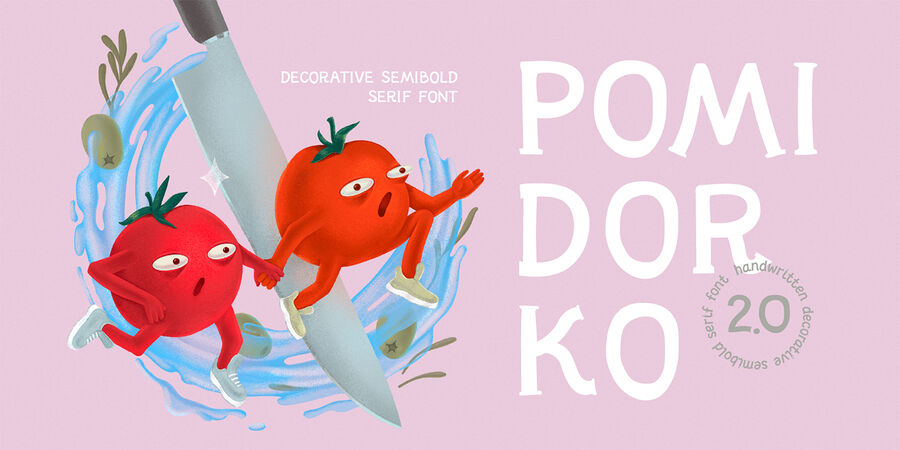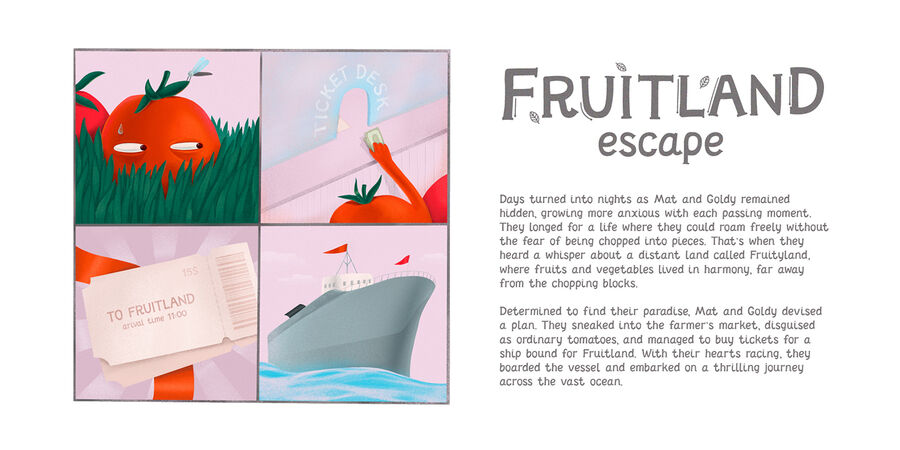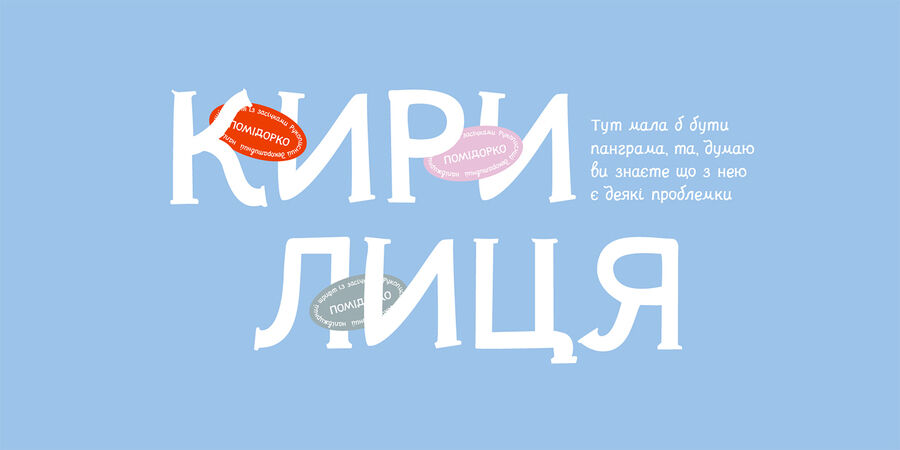
Introducing Pomidorko 2.0, the highly anticipated sequel to the beloved font Pomidorko that has captured the hearts of countless users. Pomidorko 2.0 is a perfect choice for children's products, culinary ventures, and book illustrations. Its playful and endearing character adds a touch of whimsy to any design.
With both Cyrillic and Latin variations included, this font ensures seamless communication across diverse languages and markets. Multilingual support is included for Western European languages. Don’t forget to test your characters in the font previewer below before purchasing. The Pomidorko 2.0 font also includes Open-type features to make it even more versatile. Unlock the enchanting possibilities of Pomidorko 2.0 and infuse your projects with a dash of sweetness and joy. The typeface was designed by Antonina Chikhiro in 2023.
home, man-made, handicraft, home-made, original, alive, distinctive, playful, lamp, nice, cheerful, cartoonish, glad, positive, festive, healthy, craft brewed, student, informal, manual, Artisanal, vernacular, green, natural, organic, familiar, freewheeling, bright, uneven, honest, eco-friendly, farmer, domestic, Vintage, artistic, forest, role-playing, bushy, vegetable, old-fashioned, interesting, decorative, dynamic, picturesque, magic, restless, naughty, mischievous, agile, provocative, fanciful, fairy, creative, funny, naive, witty, summer, bizarre, pumpkin, flexible, delicious, appetizing, warm, cozy, confidence, fresh, ripe, nostalgic, strange, old school, affable, friendly, pleasant, cute